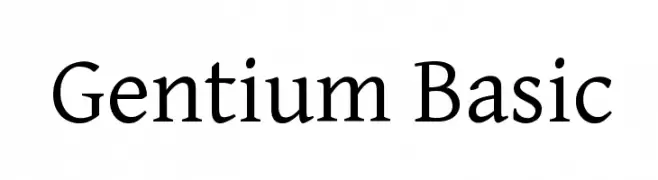
A classic serif font with elegant, traditional features and pronounced serifs.
A clean, serif font with a modern touch, ideal for readability and professional use.
A bold, classic serif font with moderate contrast and formal style.
A classic serif font with elegant, readable characters and moderate contrast.